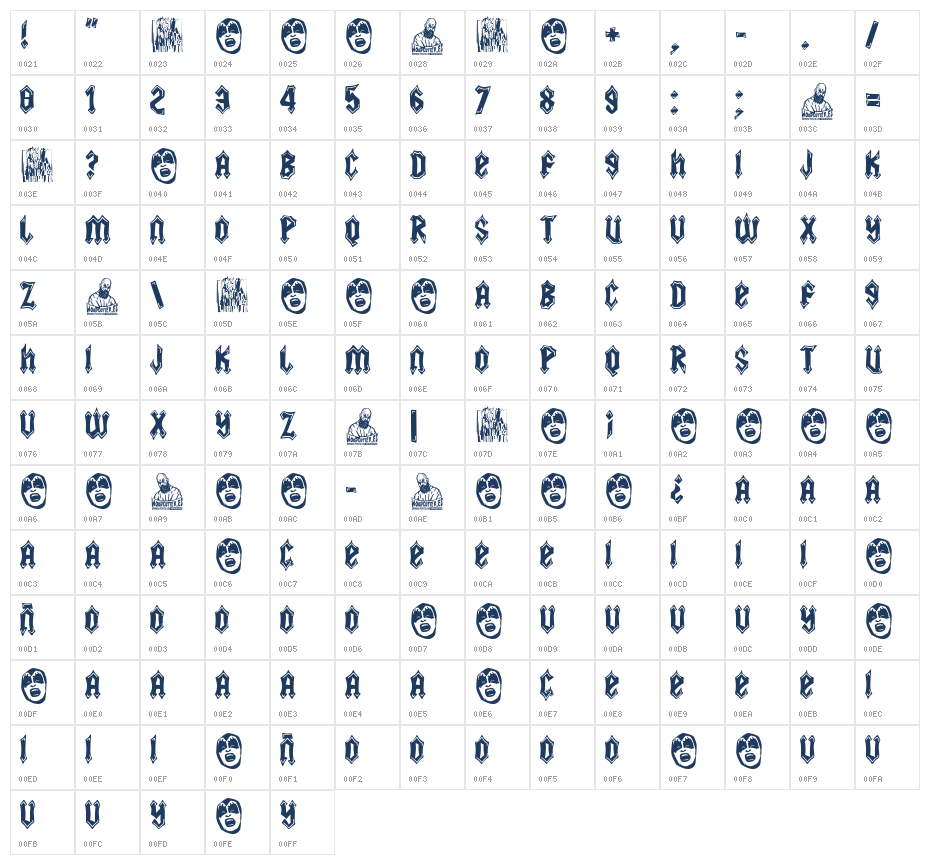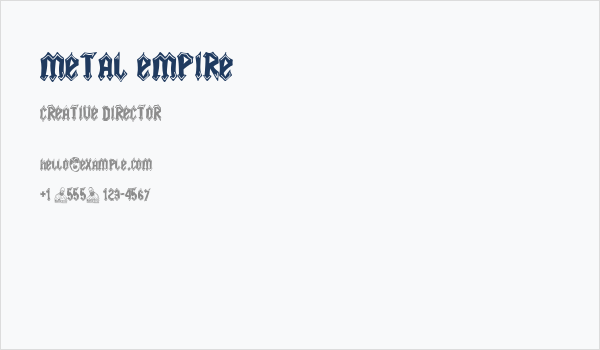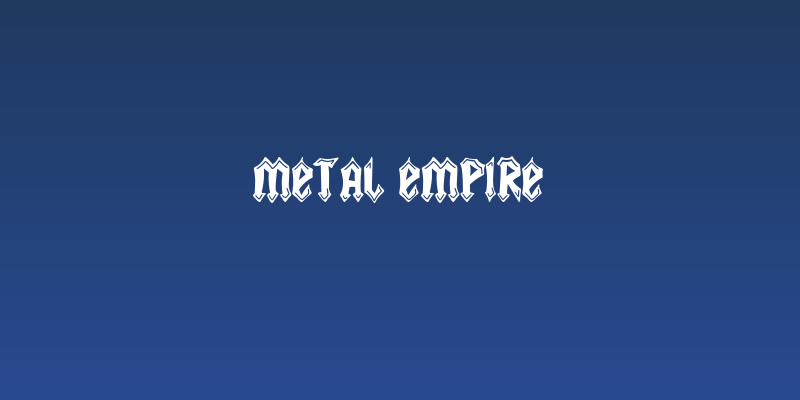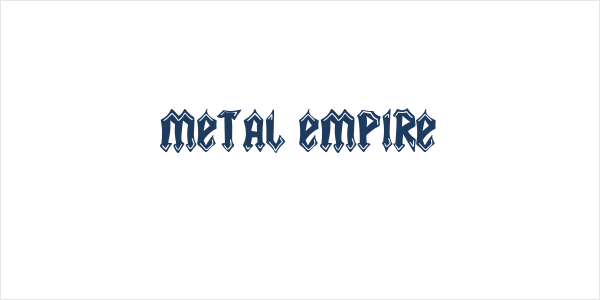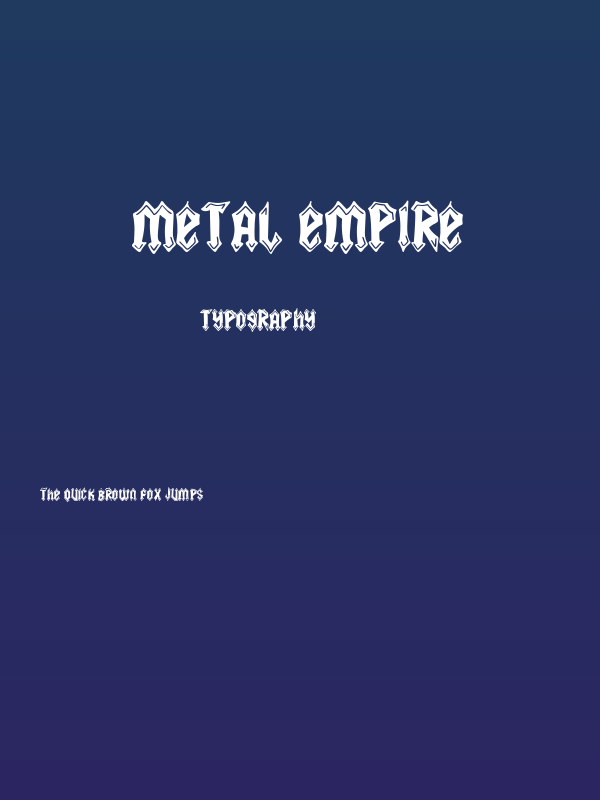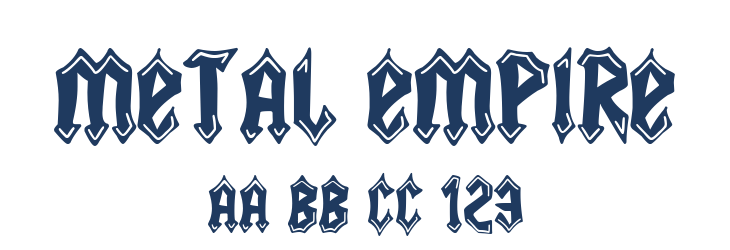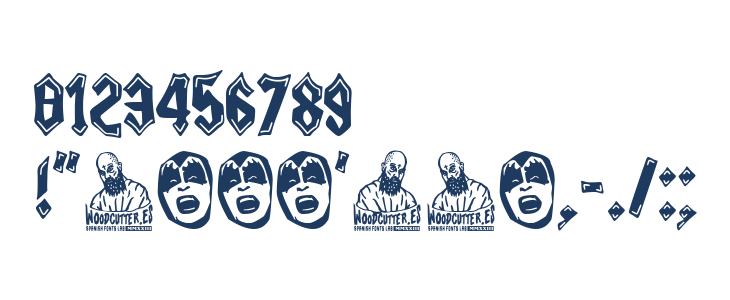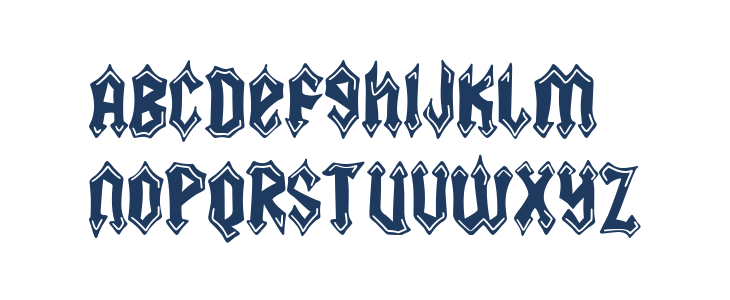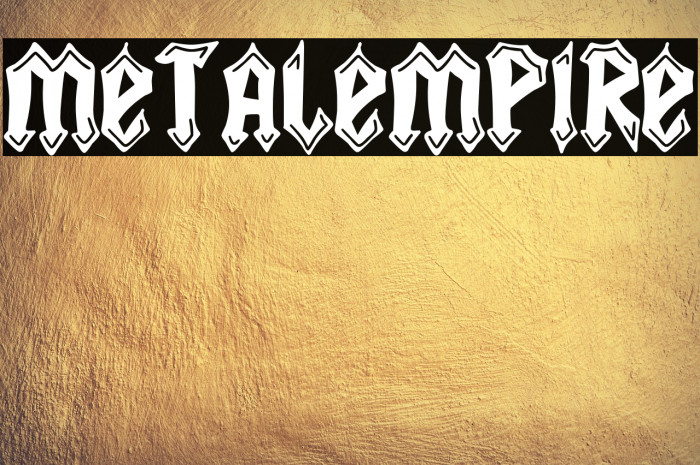
Metal Empire Font
Metal Empire Description
A Gothic or Blackletter style font with bold, angular, and ornate letterforms, featuring a three-dimensional shadow effect.
| Overall Style | Gothic/Blackletter, Vintage, Ornate |
| Use Case | Headlines, Logos, Posters, Themed Designs |